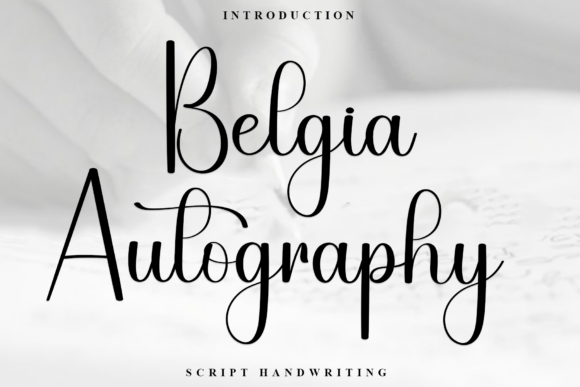
Meet Your New Best Friend: Belgia Autography Font
Remember that moment when you stumbled upon the perfect font to match your project’s vibe? It’s like finding a missing puzzle piece that makes everything fall into place. For designers, discovering the right font can be a game-changer. This is exactly what happens when you come across the Belgia Autography Font – a casual and creative typeface that exudes warmth and friendliness.
This charming font features round, playful strokes that create a relaxed and approachable feel, making it perfect for personal projects, invitations, and social media graphics. Its hand-drawn aesthetic adds a unique touch to any design, setting it apart from more traditional fonts. Whether you’re a seasoned designer or a creative enthusiast, the Belgia Autography Font is an invaluable addition to your design toolkit.
Belgia Autography Font Key Features
- Font Family: Belgium Autography, a unique and elegant script font designed to mimic handwritten text.
- Font Size: 7,500 glyphs, including a wide range of characters, punctuation, and diacritical marks, making it suitable for multilingual projects.
- Unique Characteristics: Features a distinctive, flowing script style with subtle connections between letters, giving it a natural and organic feel.
Belgia Autography Font Review
When I first laid eyes on the Belgia Autography Font, I was immediately drawn to its unique, handwritten feel ✨. The font’s imperfections and subtle variations give it a personal touch that’s perfect for adding a human element to digital designs. The font’s versatility is also a major plus, as it can be used for a wide range of applications, from headings and titles to body text and even logotypes.
However, there are a few limitations to the Belgia Autography Font that should be noted ⚠️. The font’s lack of a bold weight can make it difficult to use for headings and titles in certain contexts, and the font’s overall consistency can be a bit hit-or-miss. Some characters may appear slightly inconsistent or uneven, which can detract from the overall aesthetic.
- Unique, handwritten feel ✨
- Perfect for adding a human element to digital designs
- Highly versatile and suitable for a wide range of applications
- Lack of a bold weight ⚠️
- Inconsistent character rendering ⚠️
Overall, I would give the Belgia Autography Font a solid 4 out of 5 stars. While it’s not perfect, its unique character and versatility make it a valuable addition to any designer’s toolkit.
Belgia Autography Font is commonly used in:
- Invitations and event design.
- Stationery and letterhead design.